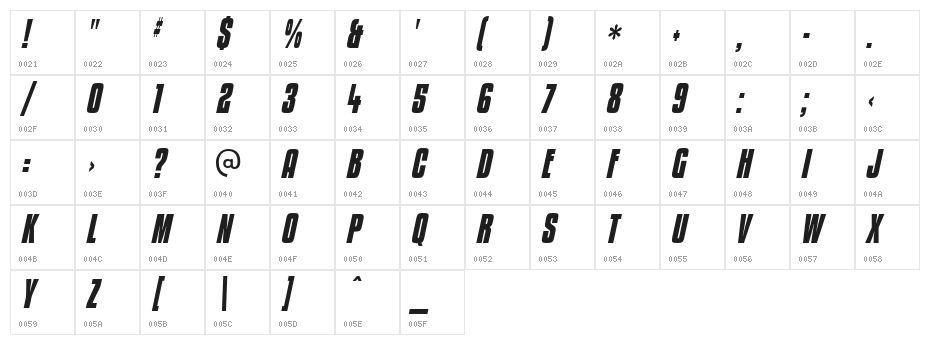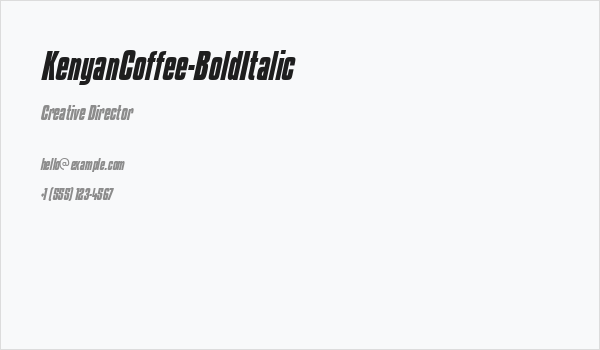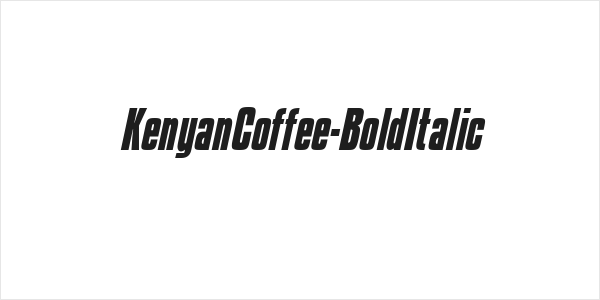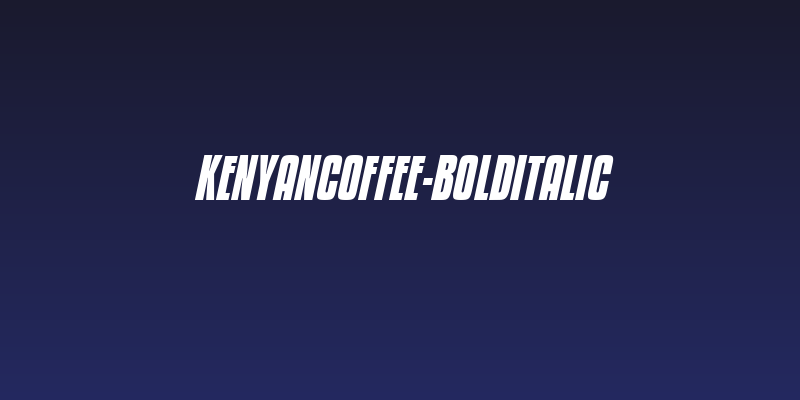
KenyanCoffee-BoldItalic Font
KenyanCoffee-BoldItalic Description
This bold and italicized font exudes a strong and dynamic presence, characterized by its thick strokes and slanted posture. The uppercase letters are tall and commanding, while the lowercase letters maintain a consistent style that complements the overall boldness. The numerals are equally robust, ensuring clear readability. Special characters are designed with the same bold and italic flair, making them stand out. This font's design is ideal for making a strong visual impact, with its high contrast and tight character spacing adding to its assertive style.
| Proposed Projects | Ideal for branding, advertising, poster design, and any project requiring a strong visual impact. |